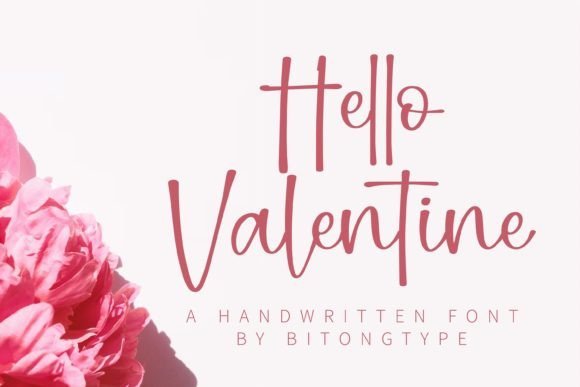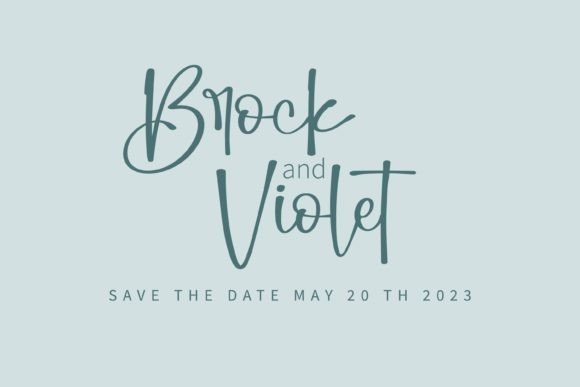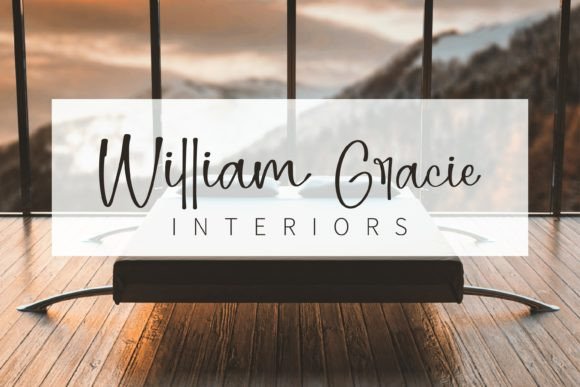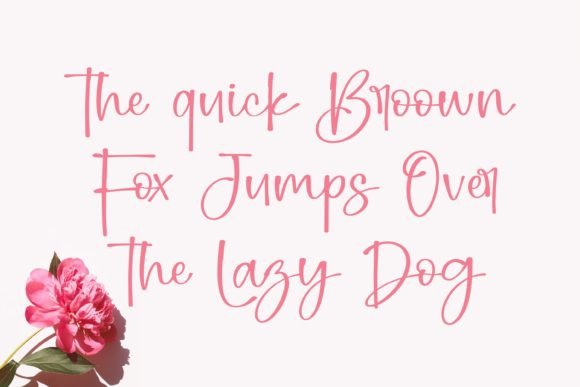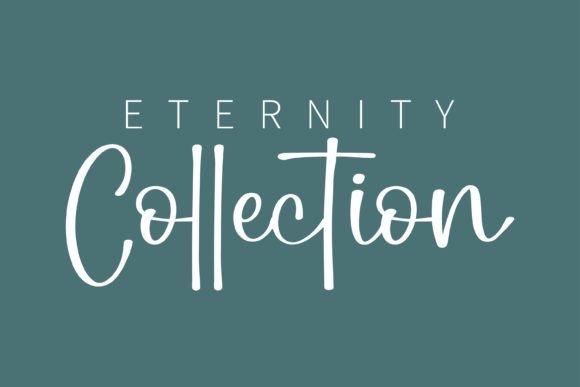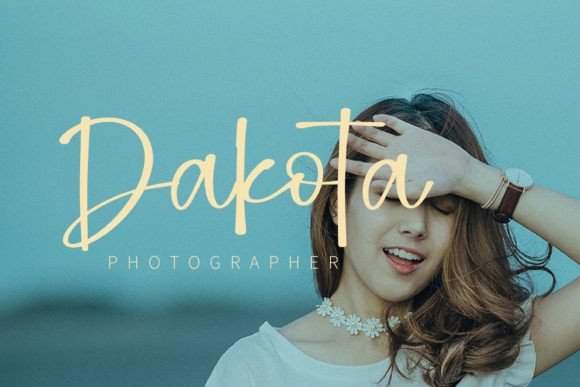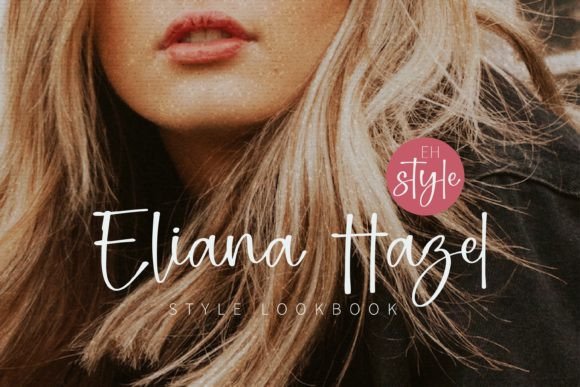
A Love Letter to Design: Unveiling the Magic of Hello Valentine Font
Have you ever been working on a project, pouring your heart and soul into every detail, only to feel like something is missing? You’re not alone. We’ve all been there, searching for that special something that will elevate our designs to the next level. And then, it hits you – the perfect font. For many designers, that perfect font is Hello Valentine Font, a masterfully crafted handwritten script that exudes romance and sophistication.
Designed to bring your creative ideas to life, Hello Valentine Font is more than just a font – it’s a tool to help you convey emotion and tell a story. With its authentic, handwritten feel, this font is perfect for projects that require a touch of warmth and personality. Whether you’re designing a wedding invitation, a love letter, or a marketing campaign, Hello Valentine Font is sure to capture the hearts of your audience.
Hello Valentine Font Key Features
- Font Family: Hello Valentine is a script font family with a romantic and elegant feel, perfect for Valentine’s Day or any occasion that requires a touch of love.
- Unique Characteristics: Hello Valentine features connected letters, swashes, and ligatures, giving it a handwritten feel that’s perfect for adding a personal touch to designs.
- Language Support: Supports a wide range of languages, including Latin, Cyrillic, and Greek, making it a versatile choice for designers working on international projects.
Designer Review: Hello Valentine Font
At first glance, the Hello Valentine font seems like a lovely addition to any design project. Its cursive, handwritten style is perfect for creating a warm and inviting atmosphere, especially around Valentine’s Day or any other romantic occasion. ✨ The font’s rounded edges and gentle curves make it a great choice for headings, titles, and short paragraphs where a touch of elegance is needed.
However, there are some limitations to consider. The font can appear a bit too playful and childish at times, which may not be suitable for more serious or professional projects. ✨ Additionally, the font’s irregularities and inconsistencies in line width can make it challenging to read, especially in longer blocks of text.
Things to Keep in Mind:
- May not be suitable for serious or professional projects
- Can be challenging to read in longer blocks of text
Overall, the Hello Valentine font is a lovely addition to any design project that requires a touch of romance and whimsy. While it may not be the best choice for every project, it’s definitely worth considering for those special occasions where you want to add a bit of personality and flair.
Use the “Hello Valentine Font” to add a touch of romance and whimsy to your designs.
Combine the font with pastel colors and floral patterns for a classic Valentine’s Day look.
Valentine’s Day cards and invitations
Love-themed social media graphics and posts
Gift tags and labels